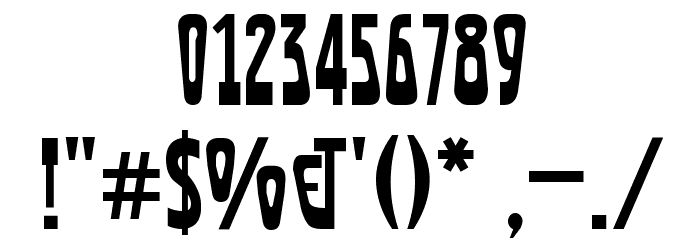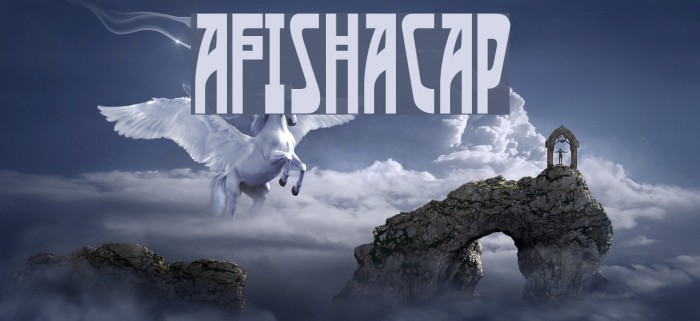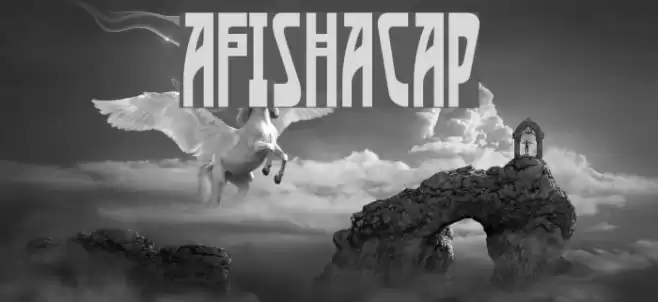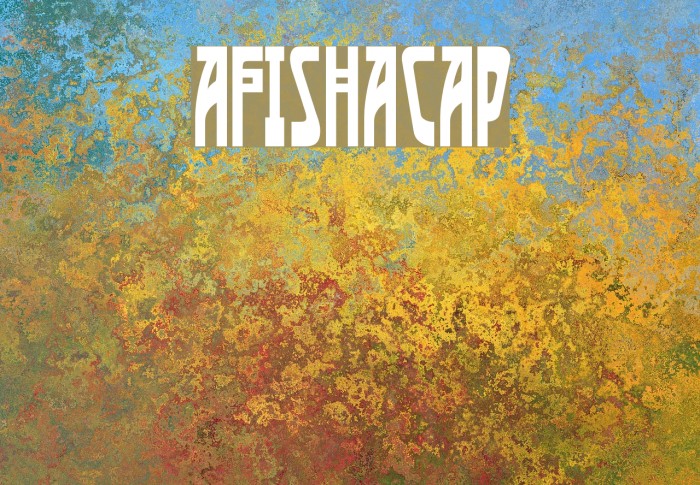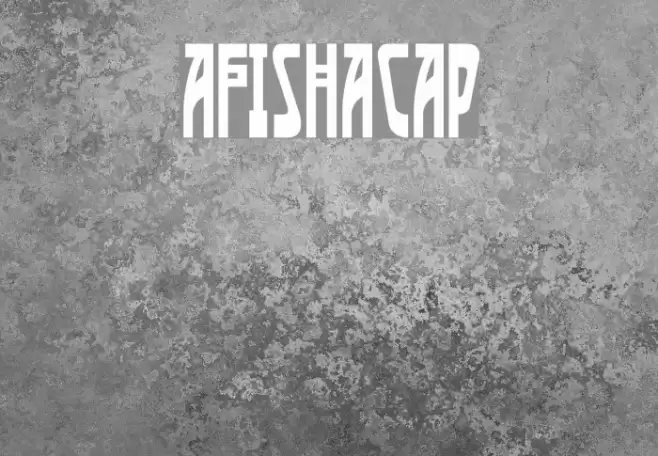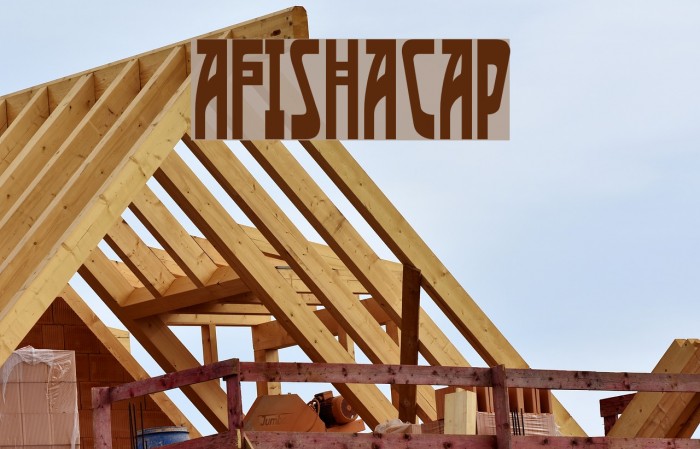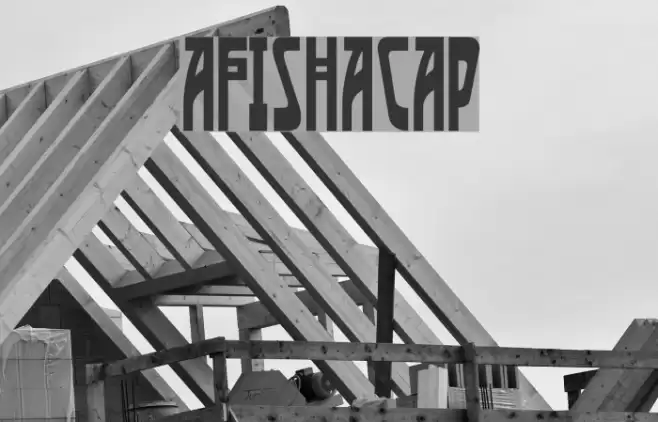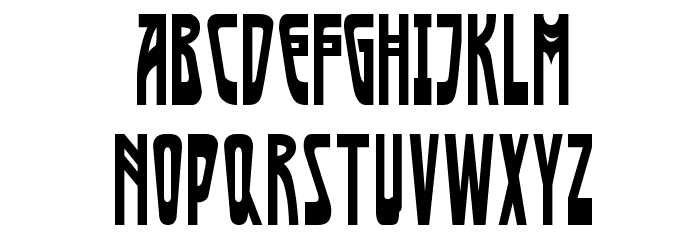
AfishaCap Font
AfishaCap Description
This font exhibits a bold and striking design with a unique, angular style that captures attention. The uppercase letters are tall and narrow, featuring sharp edges and a distinct geometric flair. The lowercase letters maintain a consistent style, complementing the uppercase with similar angular features. Numbers are bold and easily readable, following the same design principles. Special characters are crafted with precision, adding to the font's cohesive appearance. This font's overall aesthetic is modern and dynamic, making it suitable for projects that require a strong visual impact.
| Proposed Projects | Ideal for posters, headlines, branding, and any design that requires a bold statement. |